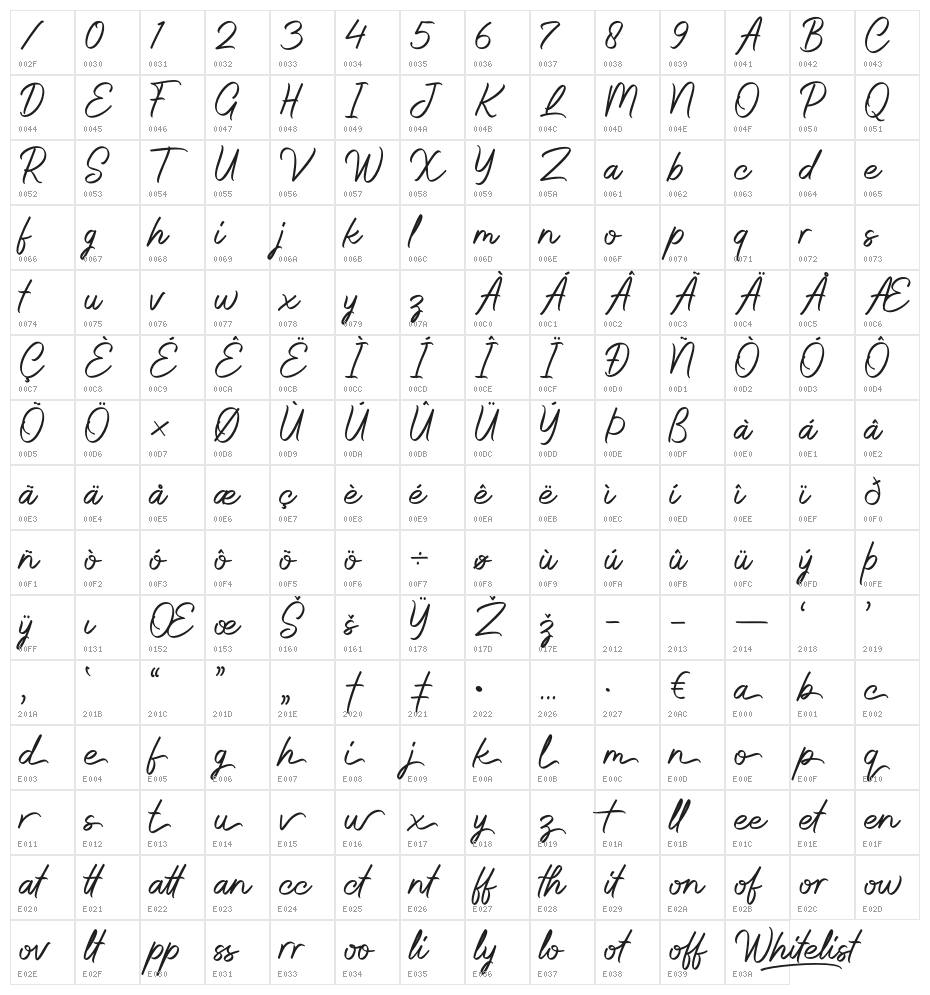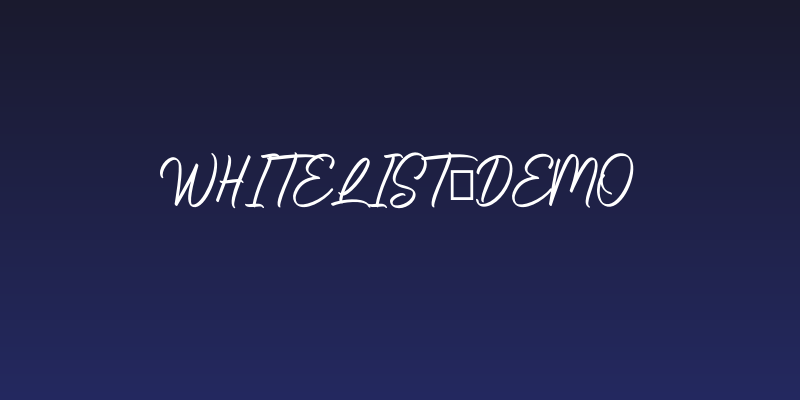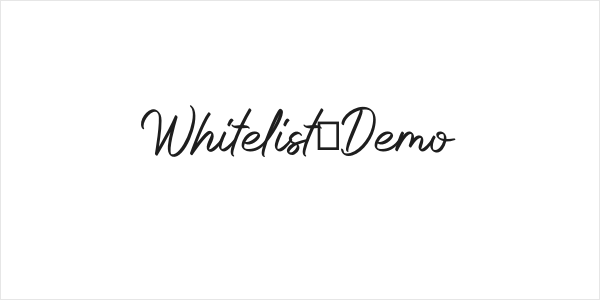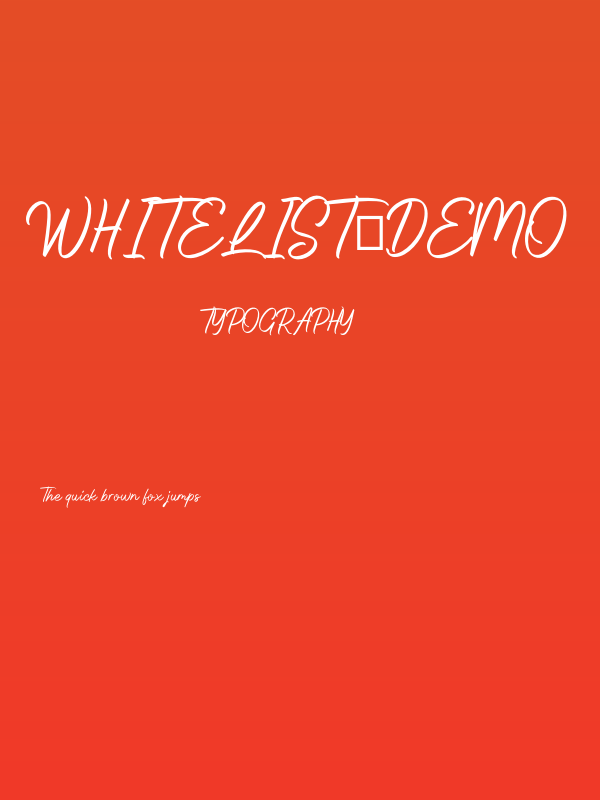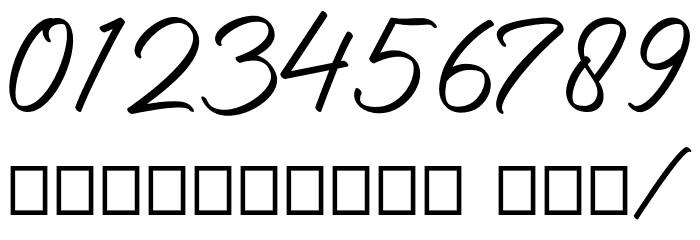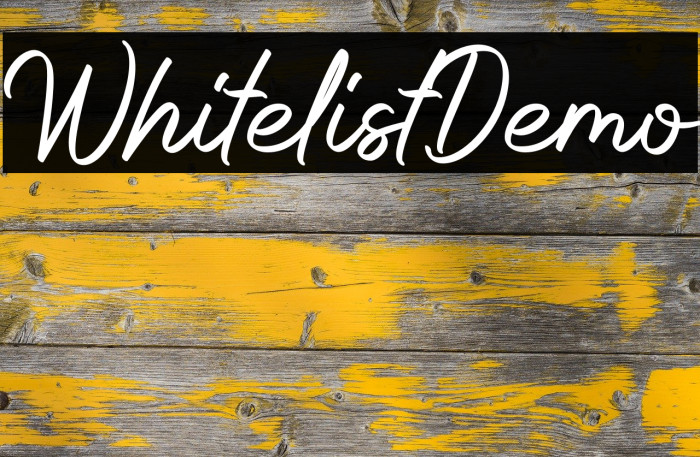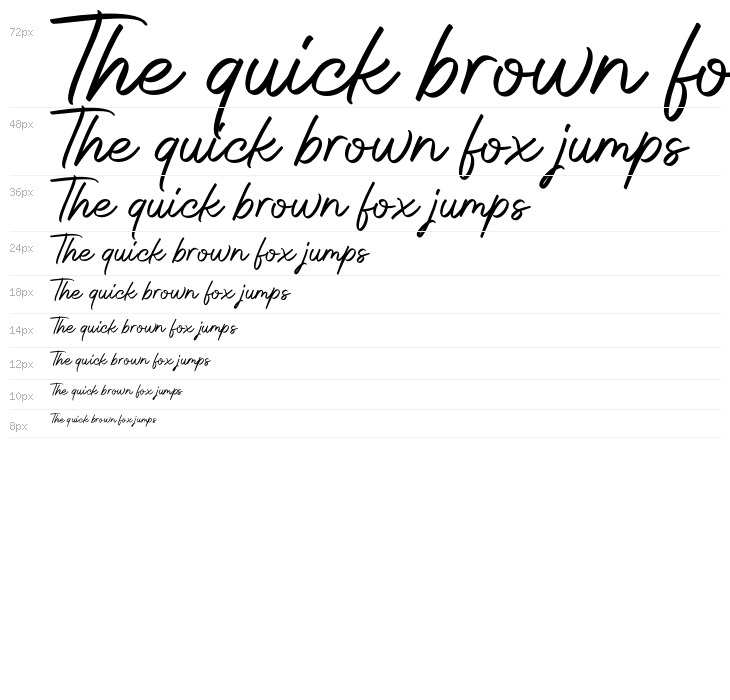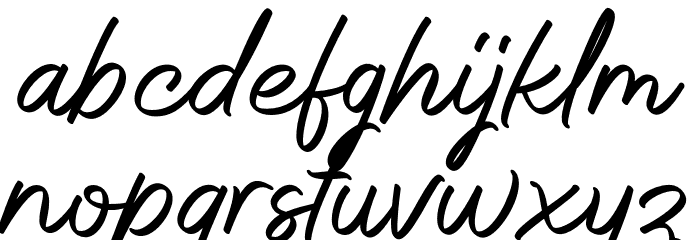
Whitelist-Demo Font
Whitelist-Demo Description
This font features a flowing, cursive style that mimics elegant handwriting. The uppercase letters are tall and slightly slanted, with smooth curves and a consistent stroke width that gives a sense of fluidity and grace. The lowercase letters maintain a similar style, with some characters featuring distinctive loops and flourishes that add to the overall aesthetic. The numerals are clear and legible, following the same cursive theme. This font is well-suited for projects that require a personal, sophisticated touch, such as invitations, greeting cards, and branding materials. Its decorative nature makes it ideal for use in headlines or as a focal point in design projects.